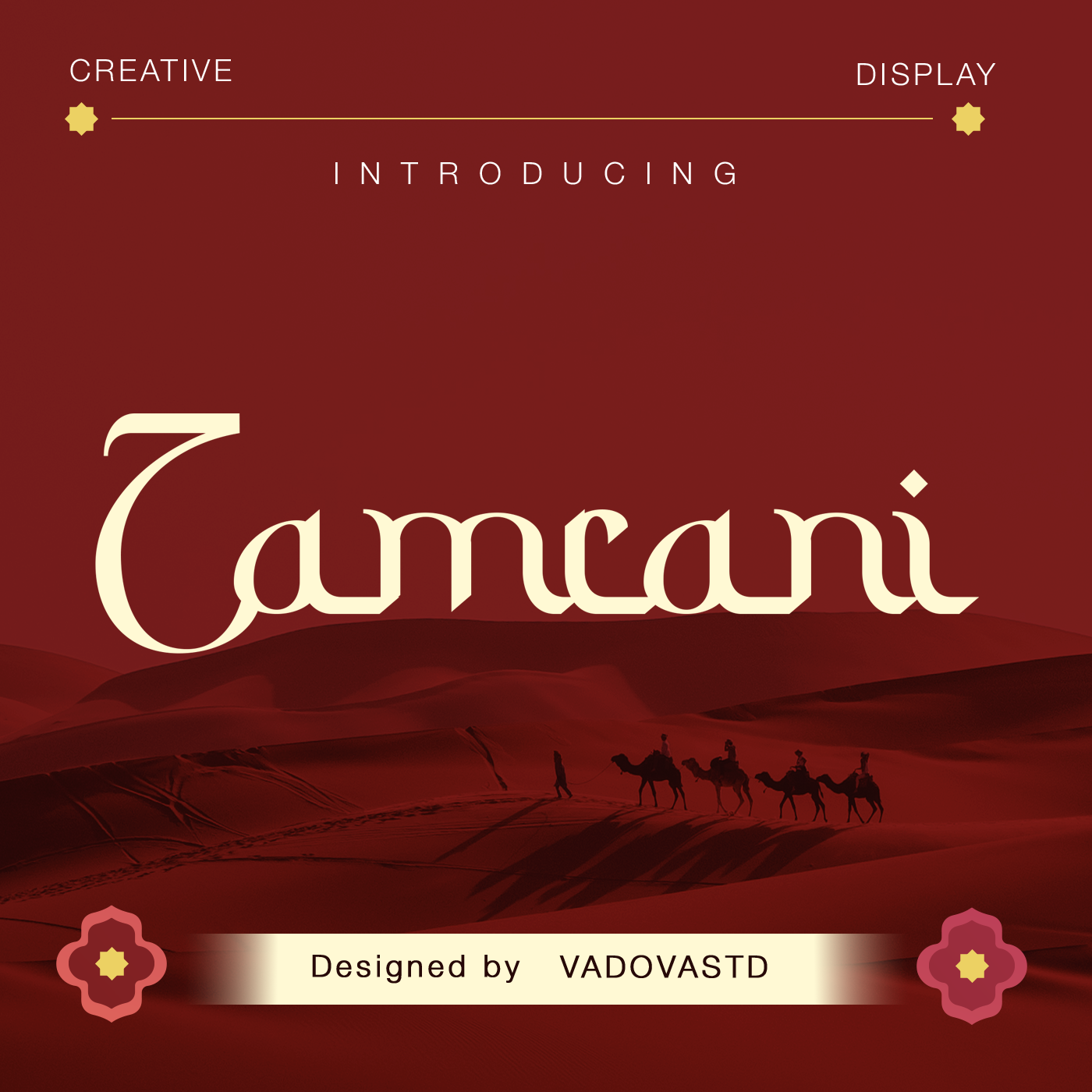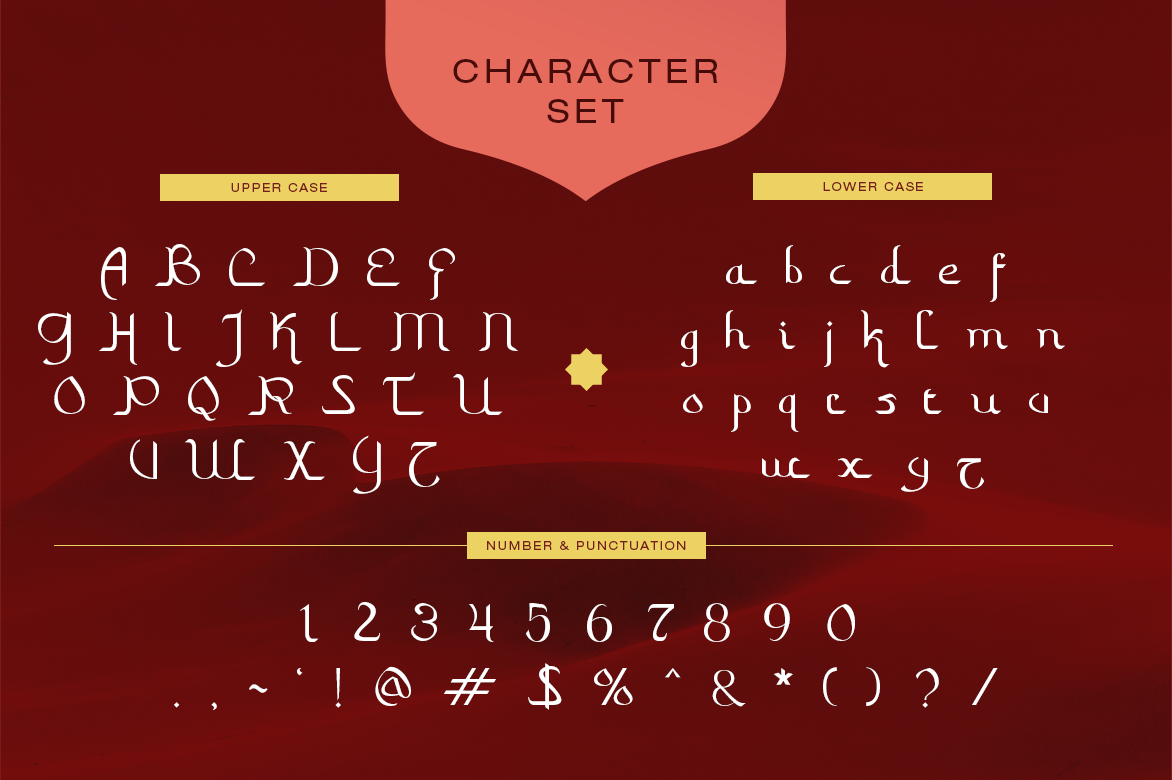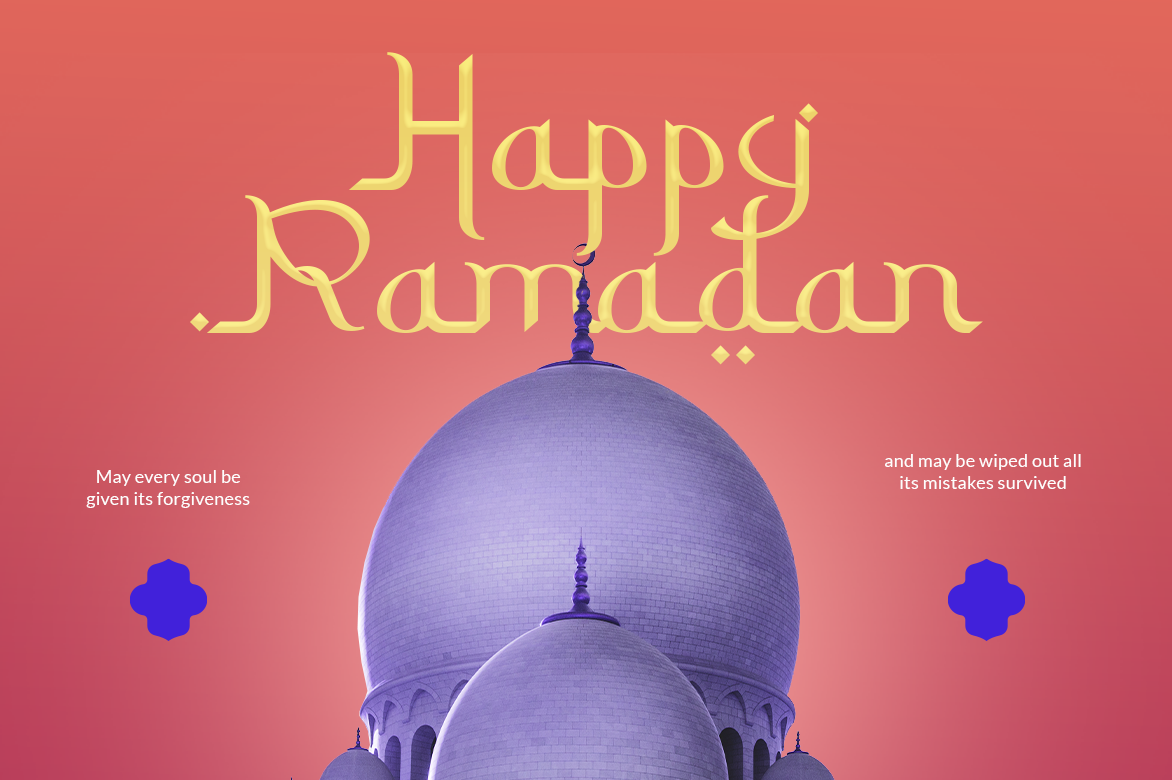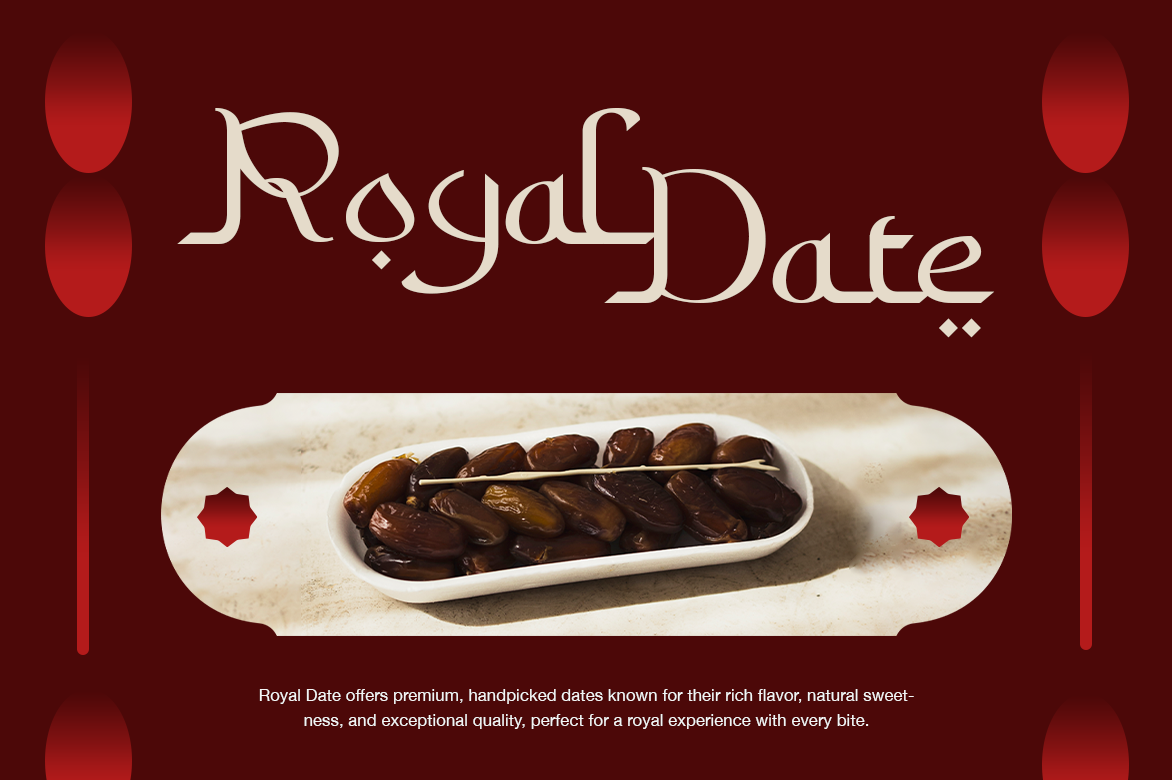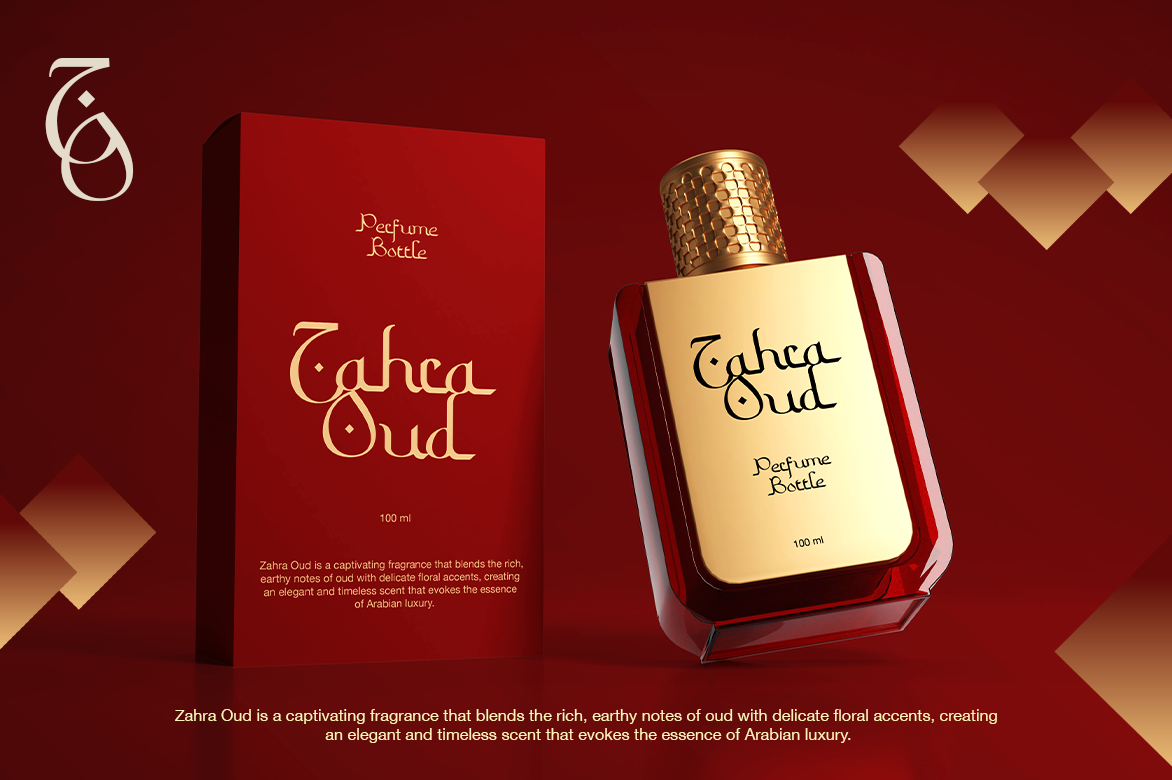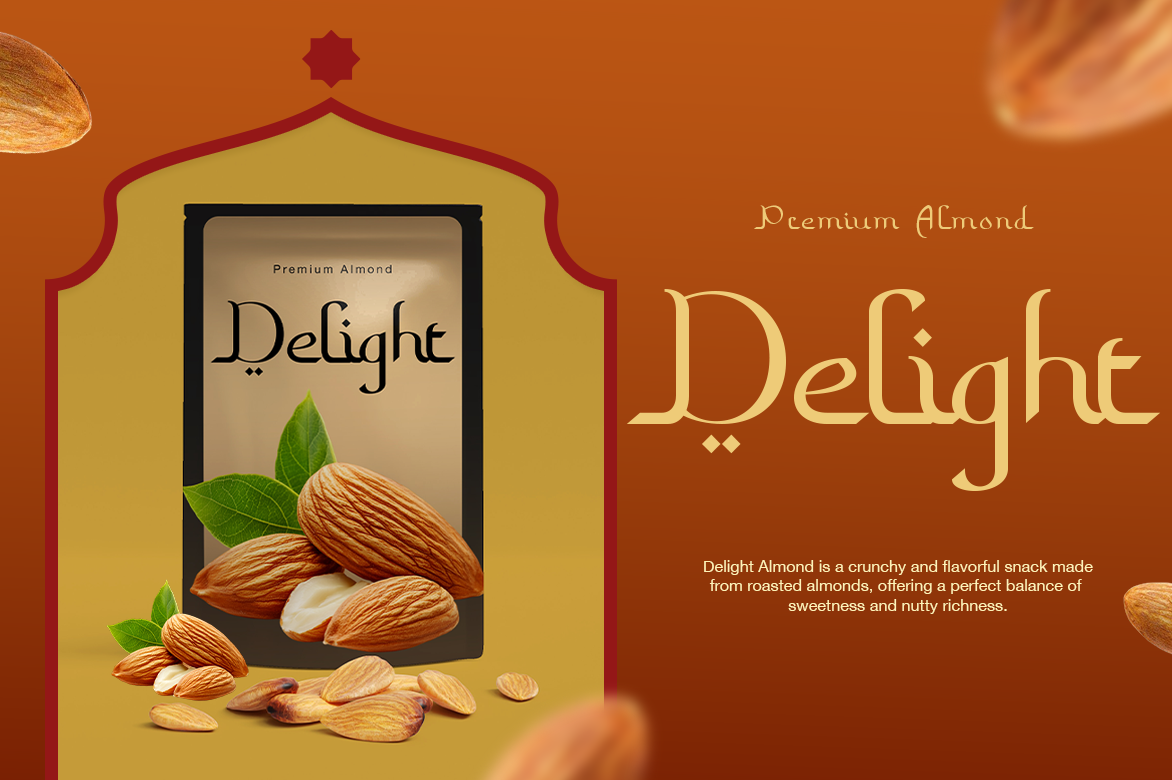
Zamrani Arabic Display Font
Zamrani Arabic Display Font is an elegant display serif font inspired by traditional Islamic and Arabic calligraphy. With refined curves, pointed details, and unique ligatures, it brings a touch of Middle Eastern heritage into modern design. Perfect for luxury branding, cultural-themed projects, editorial headlines, Ramadan or Eid promotions, and Islamic wedding invitations, Tamcani blends elegance with spiritual symbolism. Its strong visual character supports multilingual use, making it suitable for global design needs while preserving its rich, artistic roots.
The Zamrani Arabic Display Font is an elegant serif typeface inspired by traditional Islamic and Arabic calligraphy, featuring refined curves, pointed details, and unique ligatures. It is available in TTF, OTF, and WOFF formats, includes uppercase and lowercase characters, as well as numerals and punctuation.